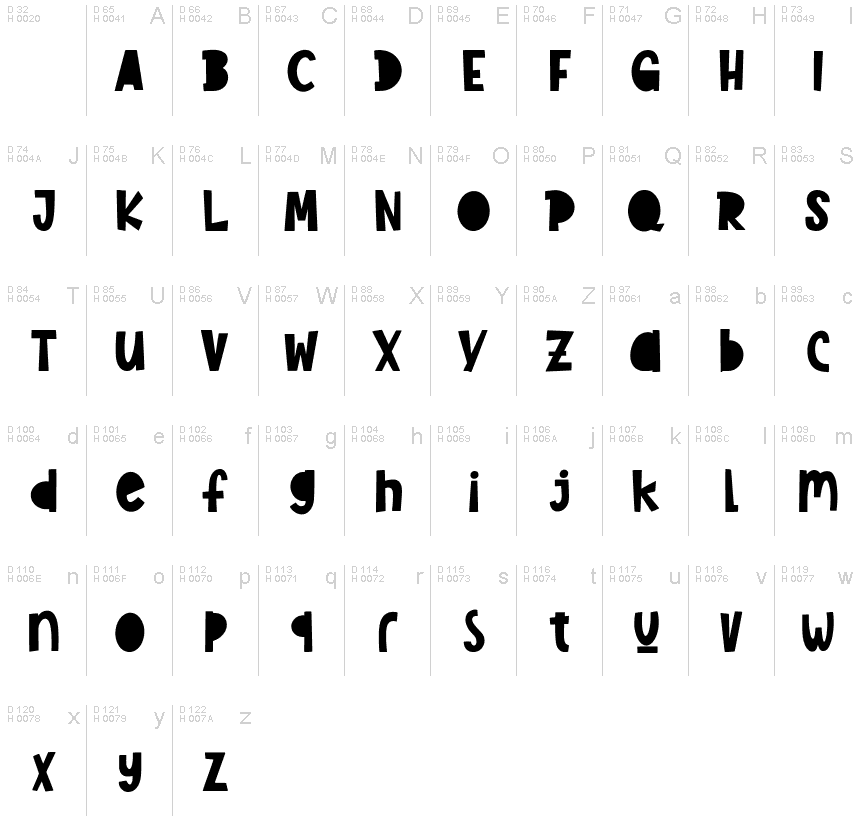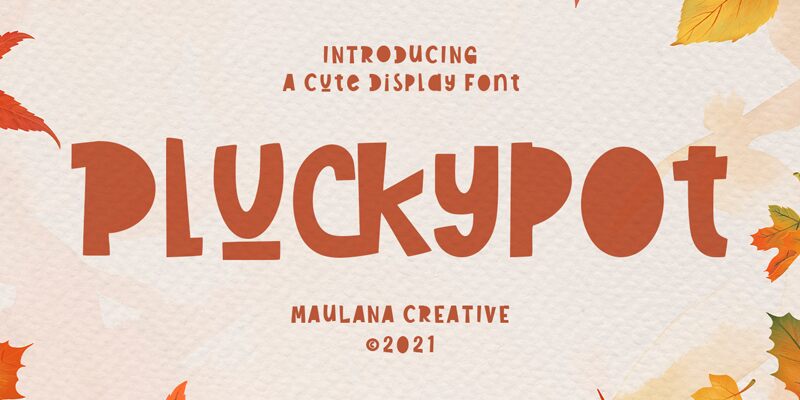
Pluckypot Free Regular
Introducing Pluckypot; a bold, cute cartoon display font by Maulana Creative. Perfect for creating eye-catching logos, posters, t-shirts and children's books. Pluckypot is sure to bring joy and delight to any project!